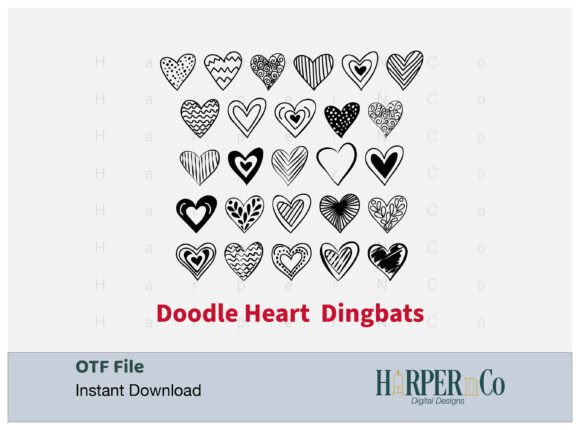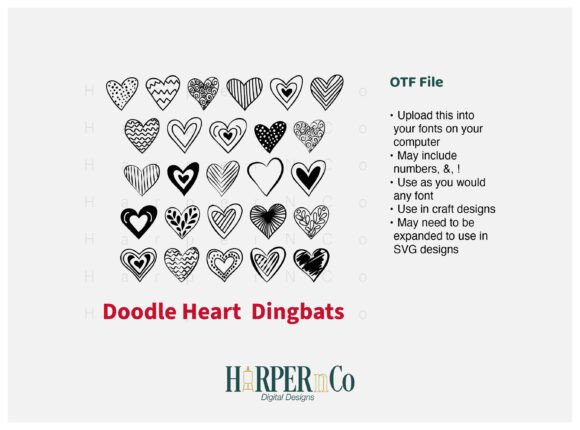
Doodle Heart Font
About the Doodle Heart Font
The Doodle Heart Font offers a perfect balance of form and function for your design needs. Discover the essence of love and creativity with the Doodle Heart Dingbat Font. This unique collection offers a captivating array of 26 hand-drawn hearts, each embodying a charming doodle-style aesthetic. Whether you’re planning to design something extraordinary for Valentine’s Day or simply wish to infuse an everyday project with a touch of heart-themed artistic flair, this OTF file font brings love to life in every design.
Its playful, hand-drawn nature makes Doodle Heart ideal for projects requiring a touch of whimsical charm. Consider using it for branding elements like logos for small businesses, social media graphics, short headlines, packaging for gifts or confectionery, and greeting cards. However, its limited character set makes it unsuitable for body text or extended use in UI.
The Doodle Heart font pairs well with clean sans-serif fonts like Open Sans for a balanced contrast of informal and formal elements, or with a more playful script like Pacifico for a consistent hand-drawn feel. A geometric sans-serif, such as Montserrat, could also offer a modern counterpoint.
Doodle Heart’s overall personality is undeniably friendly and lighthearted, perfect for brands targeting a younger demographic or conveying themes of love, happiness, and creativity.
Doodle Heart Font Usage Examples
Doodle Heart Font Example